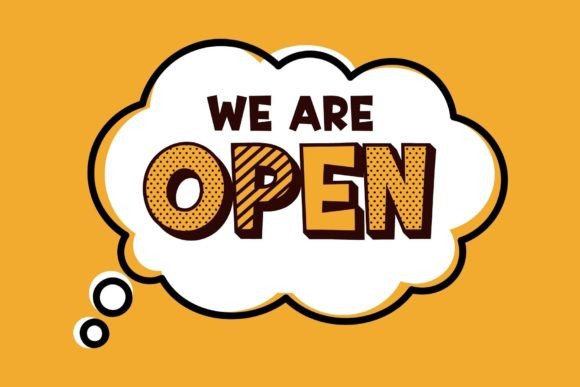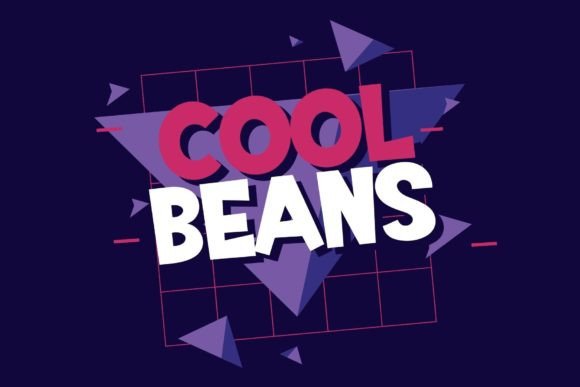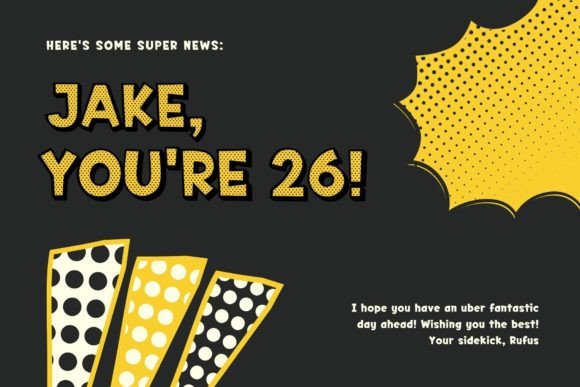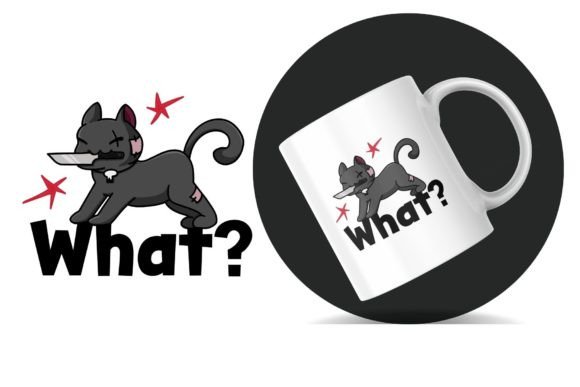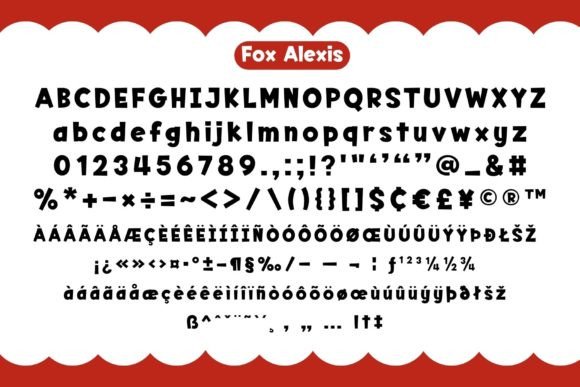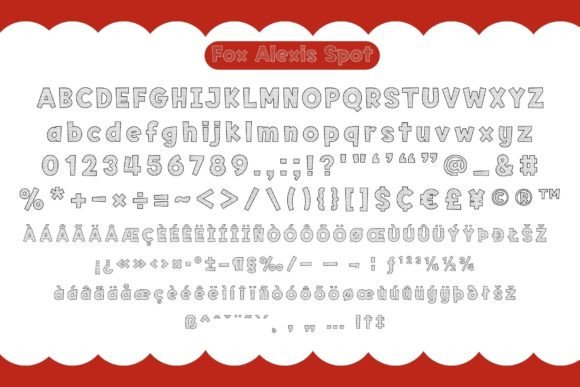
Introduction to Fox Alexis Font
Fox Alexis is a 5 style font that cool and playful display font that adds a captivating and energetic touch to your designs.
Its main feature is its vibrant and expressive design, allowing you to create attention-grabbing headlines, t-shirt typography, banners, product labels, and more With its versatility and eye-catching presence.
Key Features of Fox Alexis Font
Why Choose Fox Alexis Font?